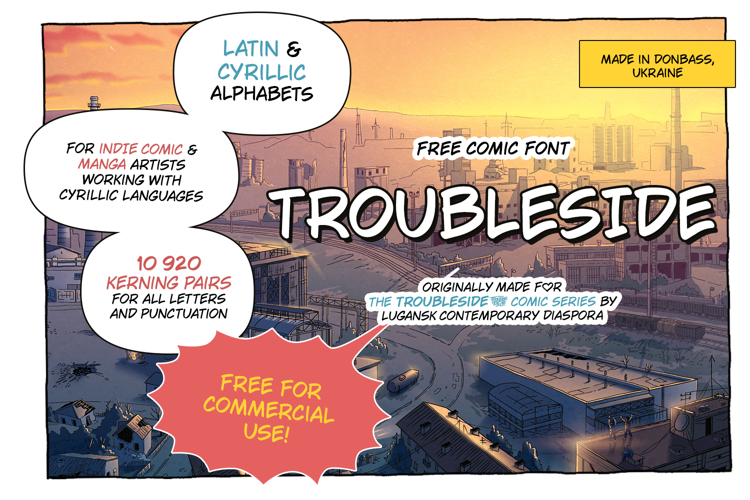
TroubleSide Font
About TroubleSide Font
Comic Style
The typeface was created to support independent comic and manga artists working with Cyrillic-based languages.
Originally designed for the comic series TroubleSide by Lugansk Contemporary Diaspora (a community of displaced artists from Donbass, Ukraine), instagram.com/lkd_dragon.
Inspired by Comicraft fonts and classic American comic book aesthetics.
TroubleSide supports over 35 Latin- and Cyrillic-based languages, including English, Ukrainian, Bulgarian, Russian, Polish, Romanian, French, German, Spanish, and many more. The font includes uppercase and alternate uppercase characters, diacritics, punctuation, and essential symbols. It also features custom kerning for smoother, more balanced text composition.
V1.5 [26.04.2021] Added stylistic alternatives with accents (acute and grave accents) for all Cyrillic and Latin vowels. Also, accented vowels can now be entered through ligatures ("vowel"+"accent" without space).